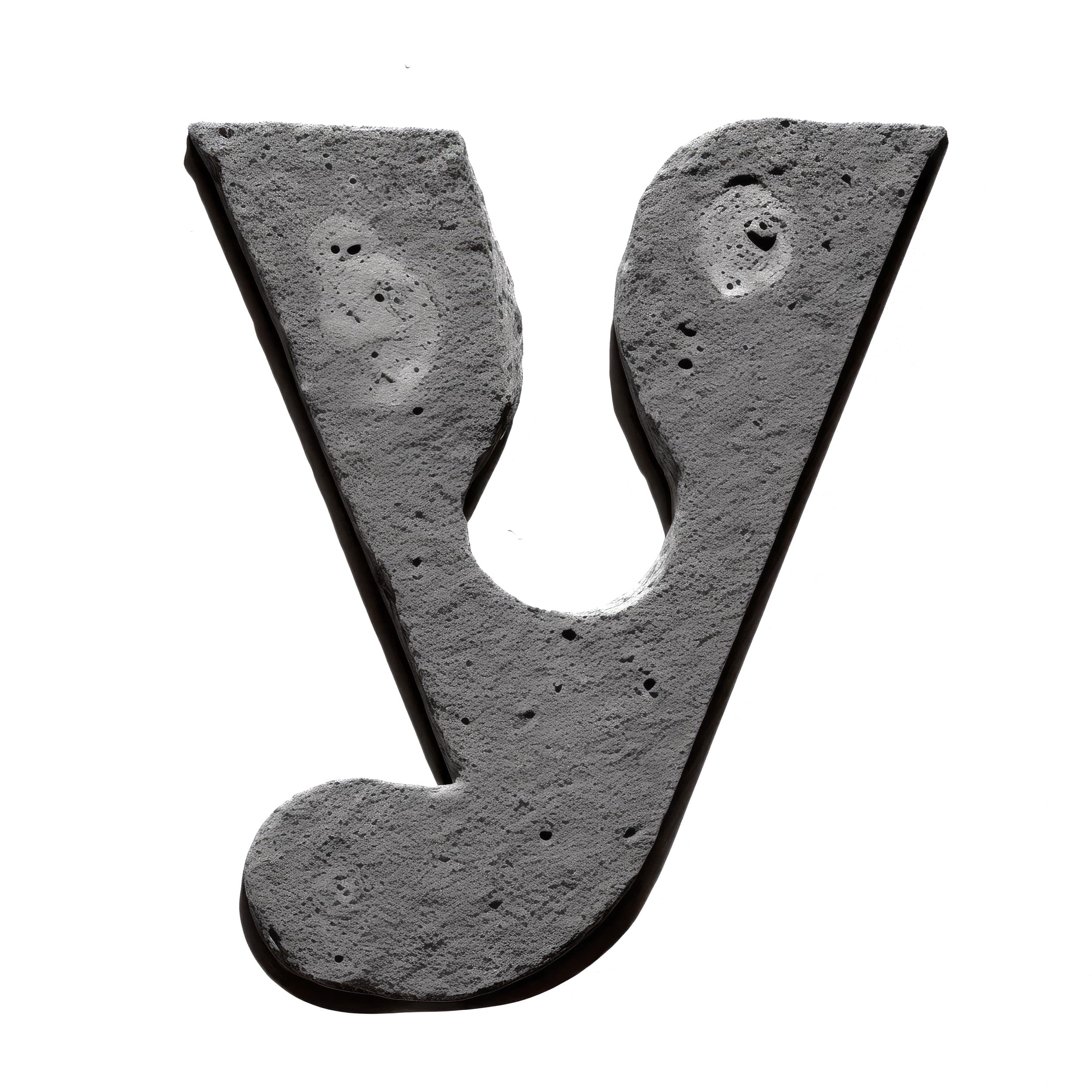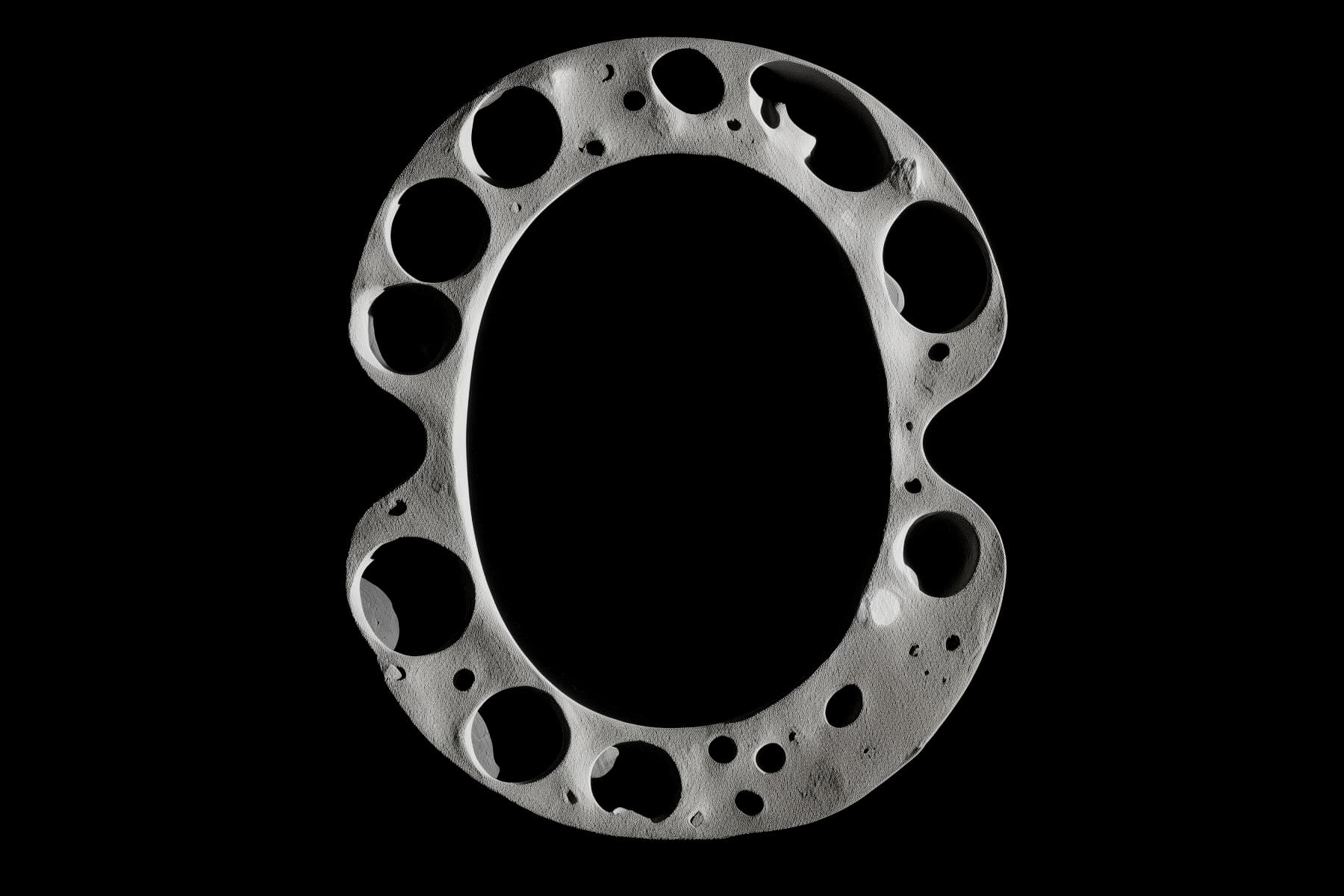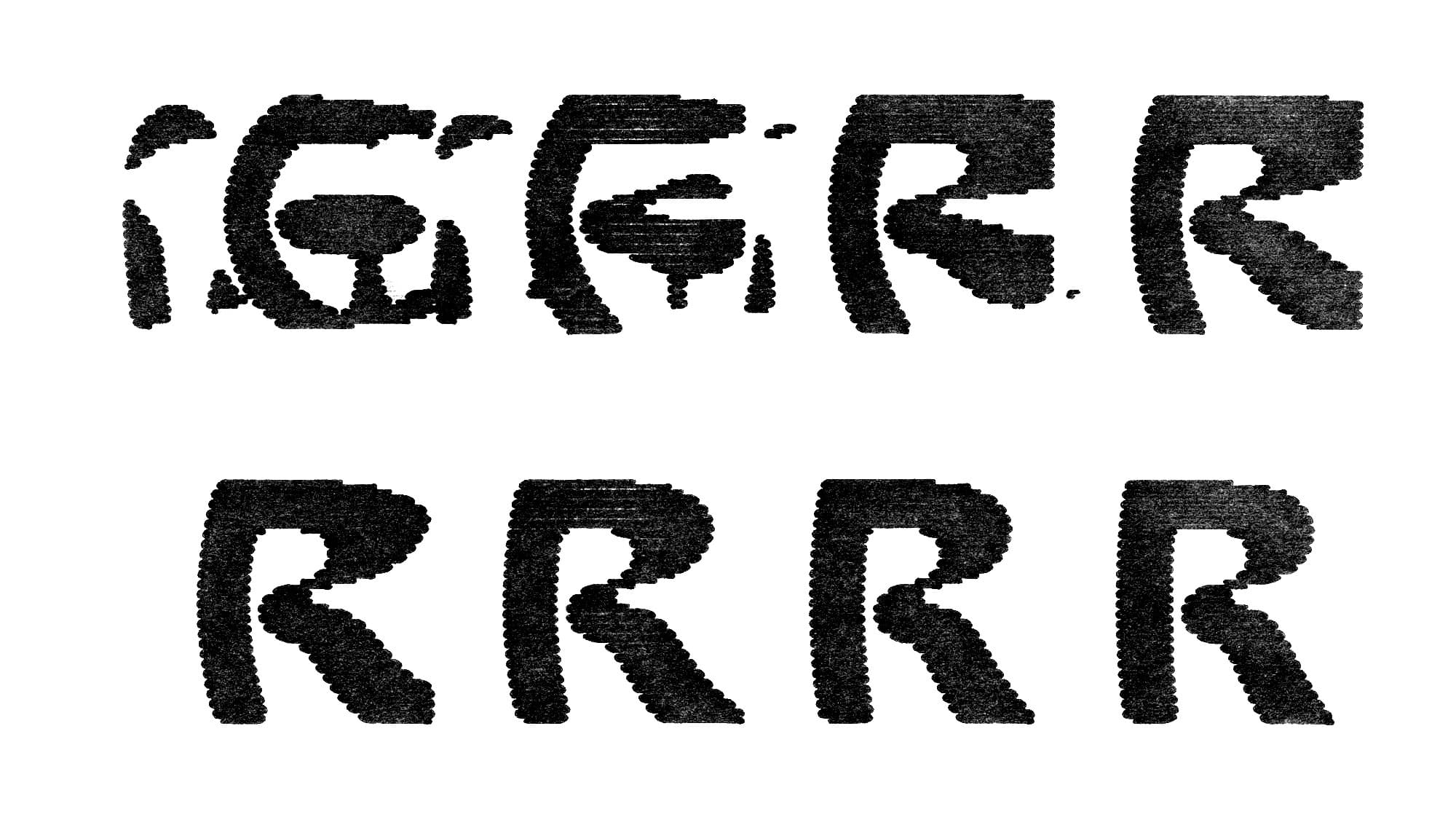
Raum
Introducing Hauss & Raum, a sans-serif work-horse and experimental display duet by Justin Sloane & Huw Williams. Hauss & Raum define distinctive polarities from the purely utilitarian to the bombastically deontological–a sturdy design tool and an exercise in psychedelic retrofuturism. While Hauss is Sloane’s meticulous creation, crafted over years of trial and refinement for his own graphic design practice, Raum represents a sort of destruction–pushing the contemporaneous “display inktrap” motif into uncharted territory.
Path driven marker renders of Raum by Daniel Savage, 2024.
Böcklin forms SS02